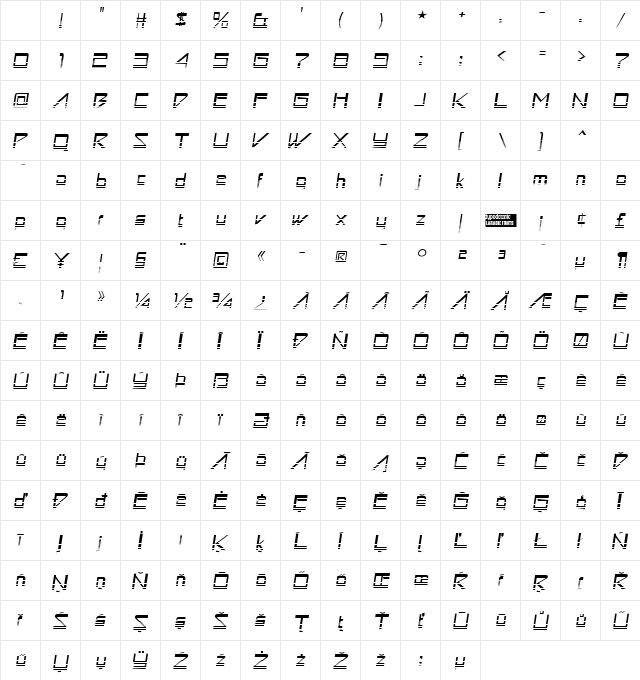
Complete Astron Boy Video Regular glyph index. Displaying only characters natively supported by Astron Boy Video Regular font.
Astron Boy Video is a composed and adaptable typeface that performs quietly and consistently across a wide range of design contexts.